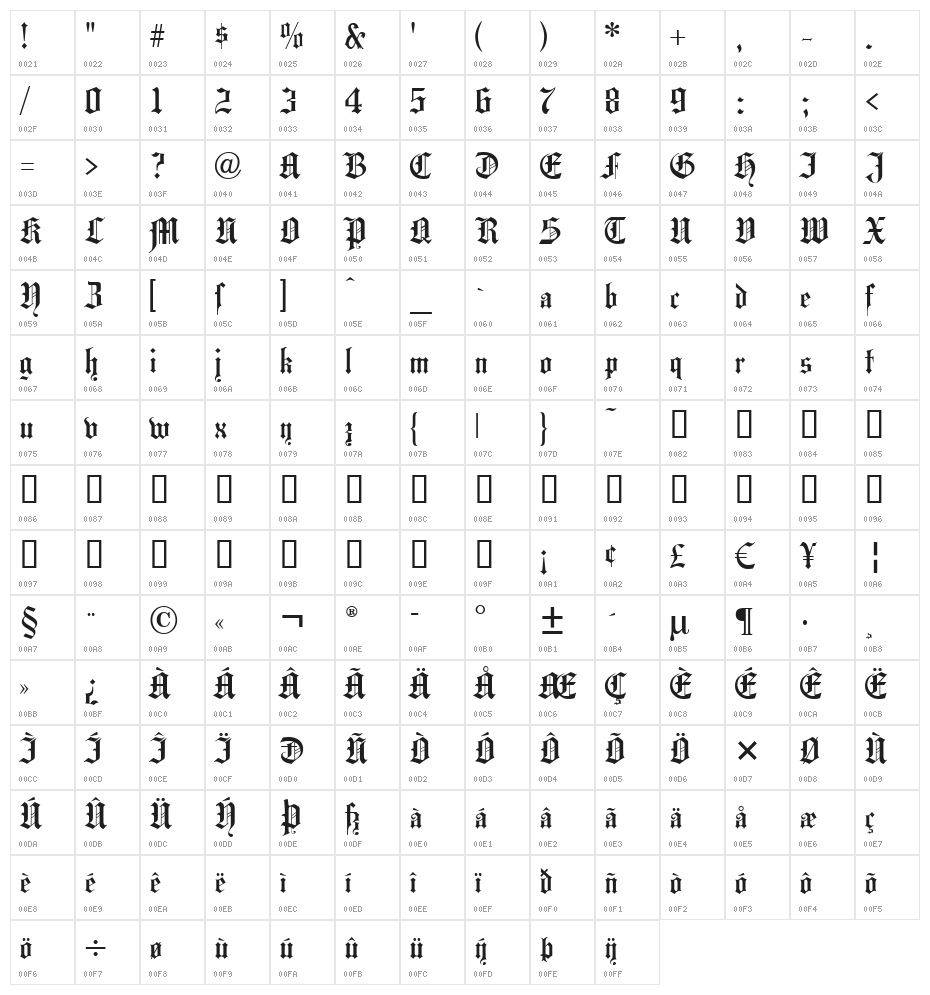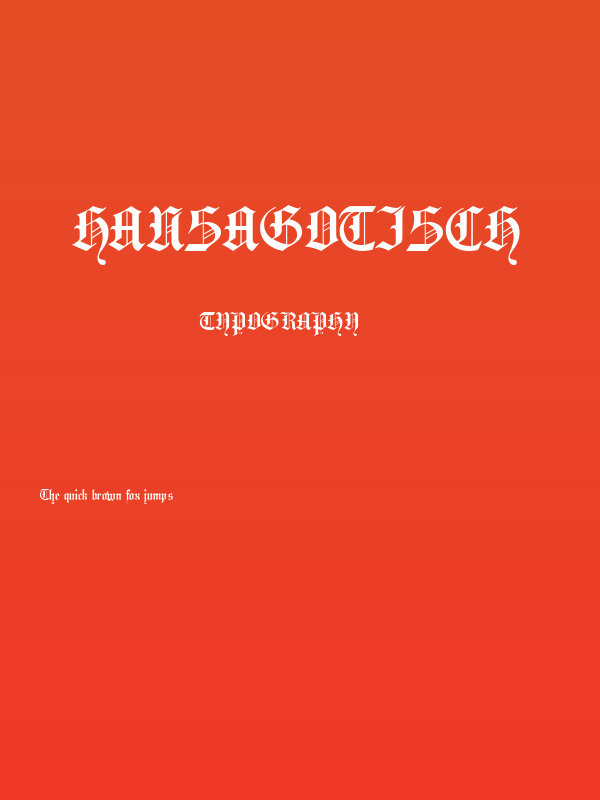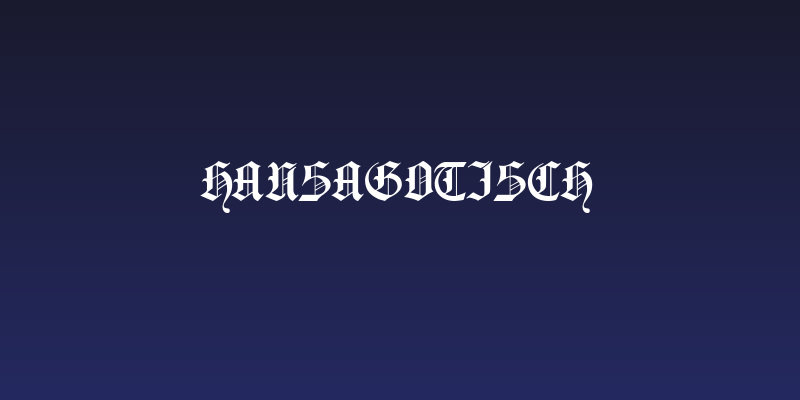
HansaGotisch Font
HansaGotisch Description
This font embodies the traditional Blackletter style, characterized by its intricate and ornate design. The letters are bold and angular, with sharp, pointed edges and elaborate serifs that give it a historic and formal appearance. The uppercase letters are particularly elaborate, featuring flourishes and embellishments that enhance their Gothic aesthetic. The lowercase letters maintain the same level of detail, with a consistent stroke width that adds to the font's uniformity. The numerals are equally stylized, fitting seamlessly with the overall design. This font is ideal for projects that require a touch of medieval or vintage flair, such as historical documents, certificates, or themed event invitations.
Overall StyleVintage
Use CaseLogos, Headlines, Decorative text
Proposed ProjectsIdeal for historical documents, certificates, themed event invitations, and vintage designs.